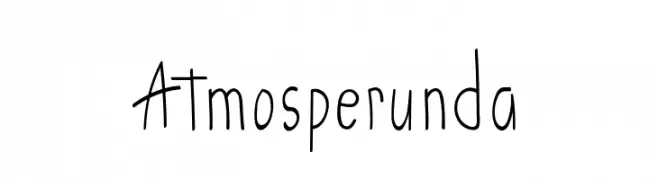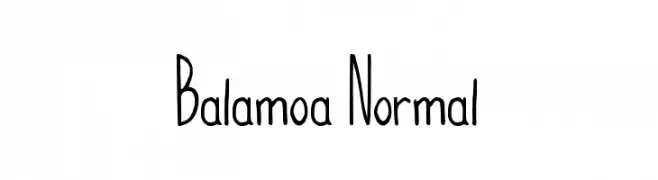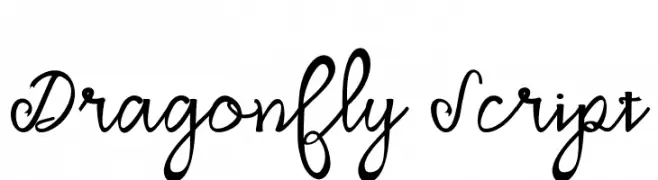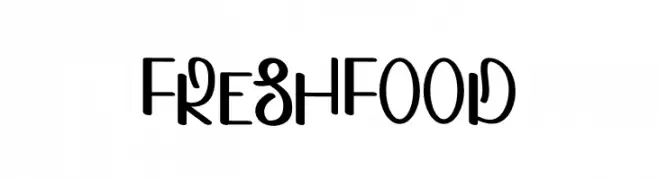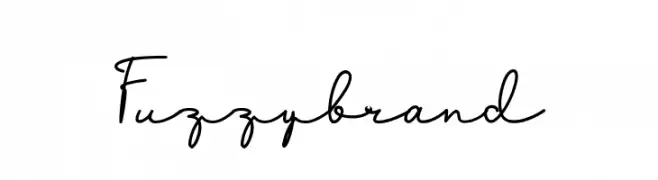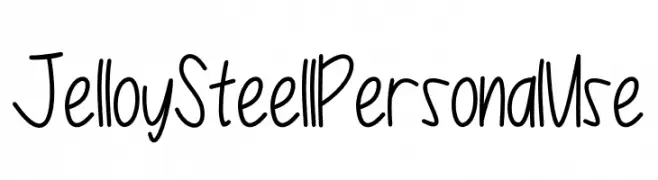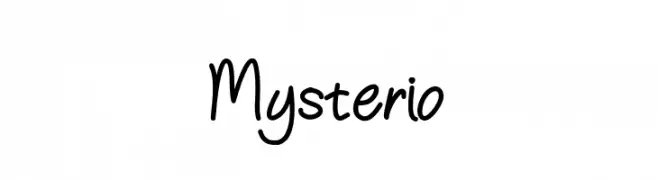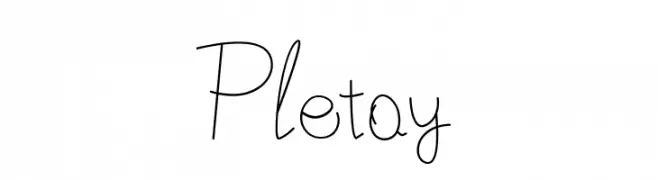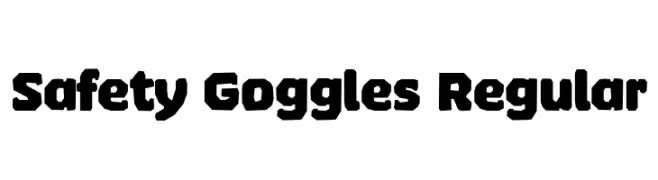
A bold, rugged font with blocky, hand-cut style letters.
A playful, handwritten font with tall, narrow letters and a casual style.
A playful and whimsical font with rounded and angular elements, perfect for creative projects.
A lively handwritten font with fluid, cursive strokes and a playful elegance.
A playful, handwritten font with smooth, flowing lines and a casual style.
A playful, handwritten font with tall, narrow letters and a modern feel.
A playful, handwritten font with thin, flowing lines and a whimsical style.
A whimsical and elegant script font with flowing, cursive characters.
A playful, handwritten font with elongated, uniform strokes.
A playful handwritten font with smooth curves and a casual style.